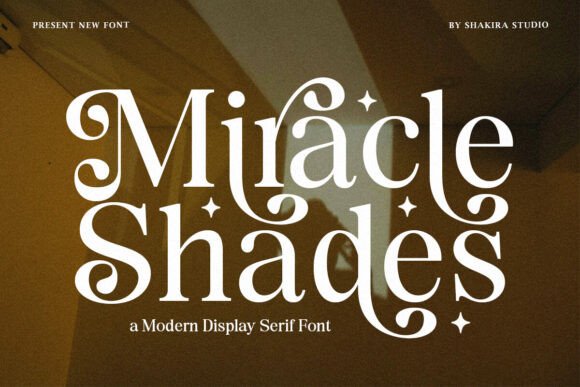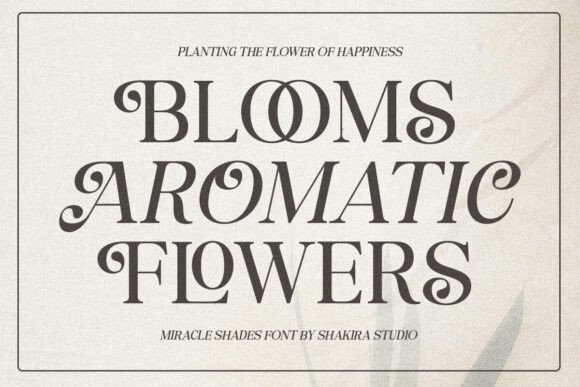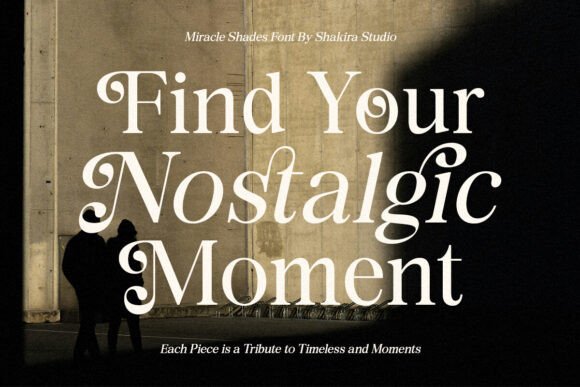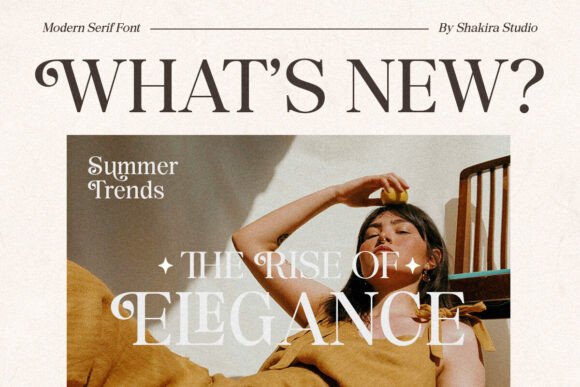
Miracle Shades Font
About the Miracle Shades Font
Experience the unique personality of Miracle Shades Font, a font designed for impact. Introducing Miracle Shades, a Modern Serif Display font that offers a sleek and contemporary edge to any design project. Available in both regular and italic versions, Miracle Shades is crafted for those who seek a blend of modernity and sophistication.
Its distinct serifs and clean lines make it ideal for high-impact headlines and elegant branding. Whether you’re designing for print, web, or digital media, Miracle Shades delivers a versatile typography solution that commands attention.
Miracle Shades excels in headline applications, logos, and short-form text within branding materials and posters. Its elegant serifs and clean lines lend themselves well to sophisticated packaging design, particularly for premium products. However, due to its strong visual weight, it’s less suitable for body text or lengthy paragraphs, and should be avoided in user interfaces where readability is paramount.
For optimal pairings, consider complementing Miracle Shades with a clean sans-serif like Open Sans for body copy, maintaining visual balance. Alternatively, a geometric sans-serif such as Futura would create a modern and highly structured feel. For a touch of contrast, a delicate script font could be used sparingly to highlight specific elements, provided it doesn’t compete with Miracle Shades’ strong presence.
The overall personality of Miracle Shades is sophisticated and modern, yet bold. It projects confidence and a sense of premium quality, making it suitable for brands aiming for an upscale and contemporary image.
Miracle Shades Font Usage Examples
Miracle Shades Font Example